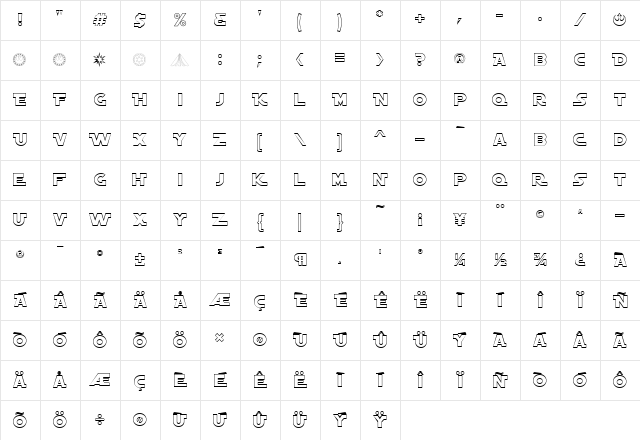
AstroAlternateOutline Regular Free Font
AstroAlternateOutline Regular
Design Context for AstroAlternateOutline
AstroAlternateOutline is built around its visual character rather than neutral utility - its distinctive forms are designed to make an impression at display sizes.
Font Pairing: Pair with a clean neutral sans-serif for body copy to let AstroAlternateOutline's character lead without overwhelming the composition.
Pro Tip: Use AstroAlternateOutline exclusively at display sizes - it was designed to be seen, not read at length. Let a neutral companion handle body copy.